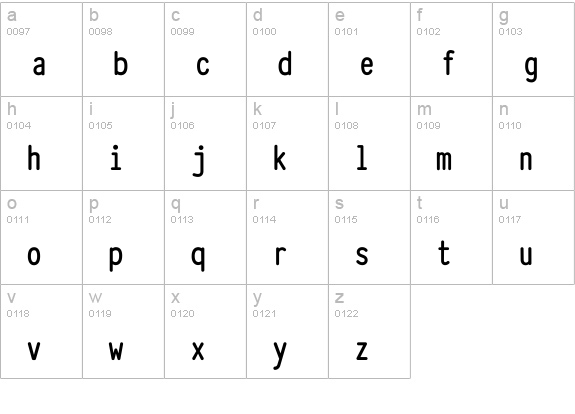
Typewriter_Condensed Bold Font Details
Typewriter_Condensed Bold is a strong, high-contrast variant in the Typewriter_Condensed typeface family \xE2\x80\x94 well suited to headlines, attention-grabbing titles, and strong calls-to-action.
Typewriter_Condensed Bold font is a stylish and modern typeface that exudes a strong and bold presence. Its condensed style makes it perfect for adding a sleek and contemporary touch to your designs. The clean lines and distinct characters of this font make it ideal for headlines, titles, and other prominent text elements. And the best part? Typewriter_Condensed Bold font is available for free download at FontsMarket.com! This means you can easily access this versatile font to enhance your projects without any cost. Whether you're working on a poster, flyer, website, or any other design project, Typewriter_Condensed Bold font will surely make a statement with its unique and eye-catching appearance. Add this font to your collection today and elevate your designs with its bold and modern aesthetic.